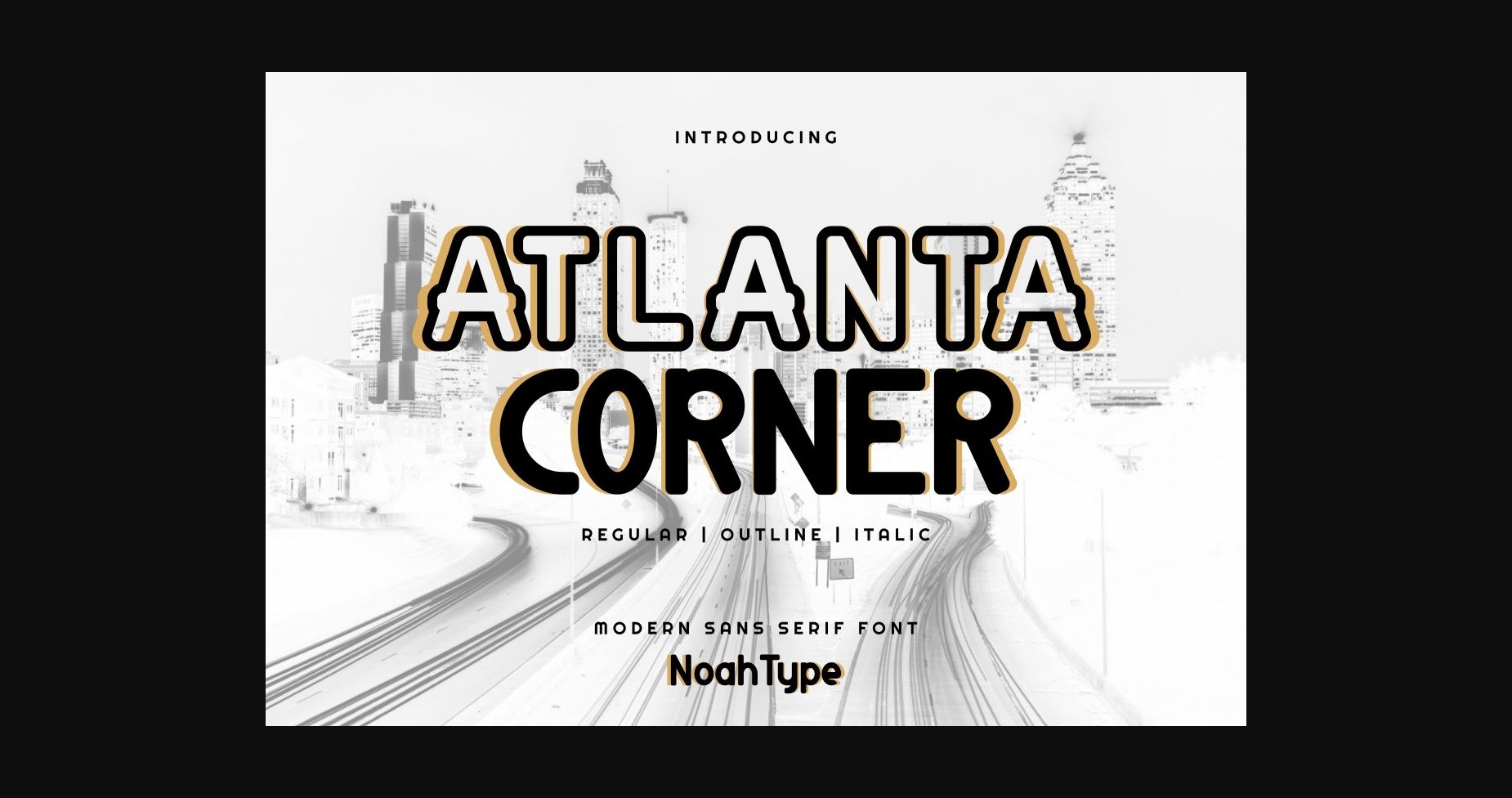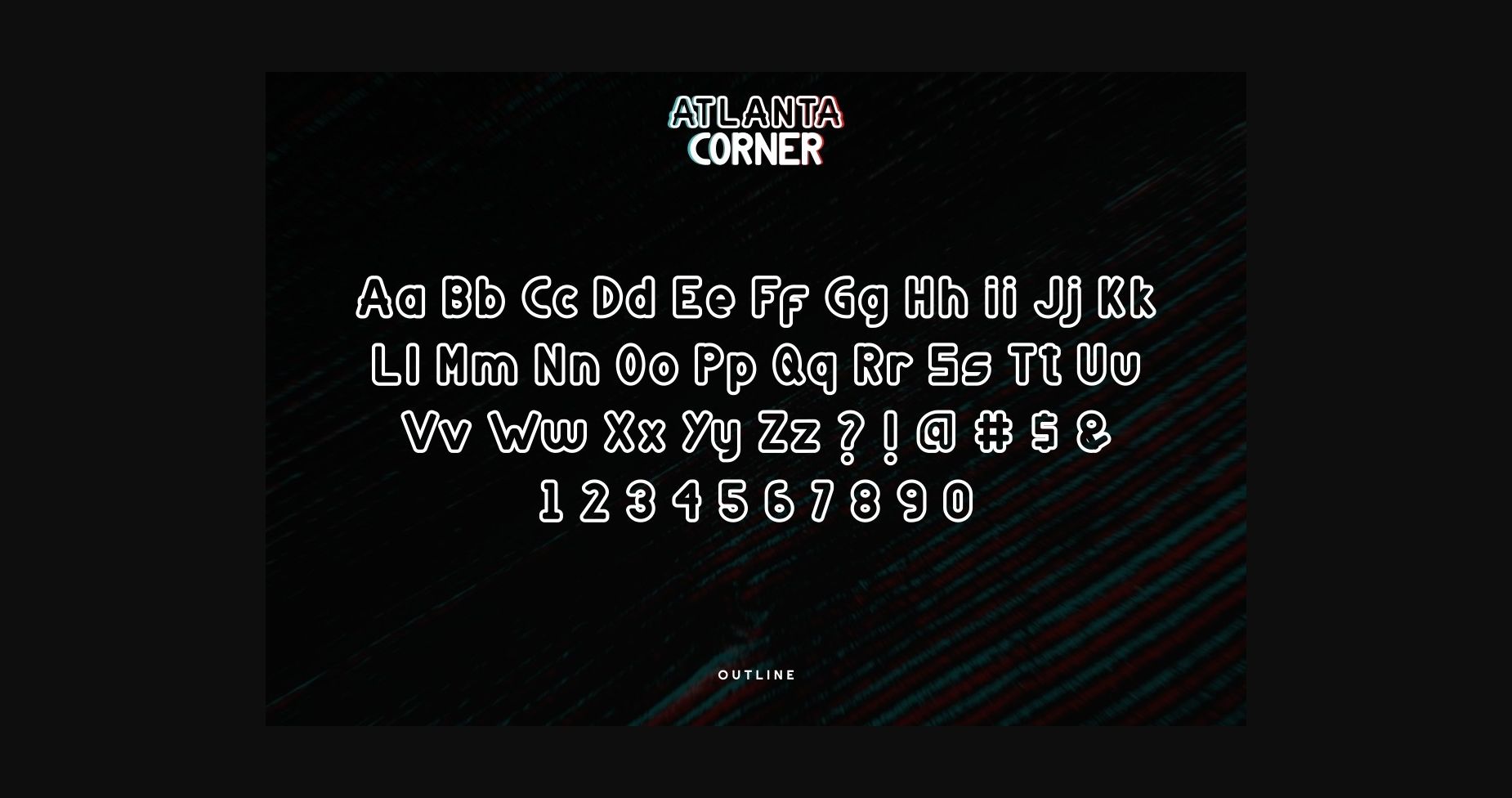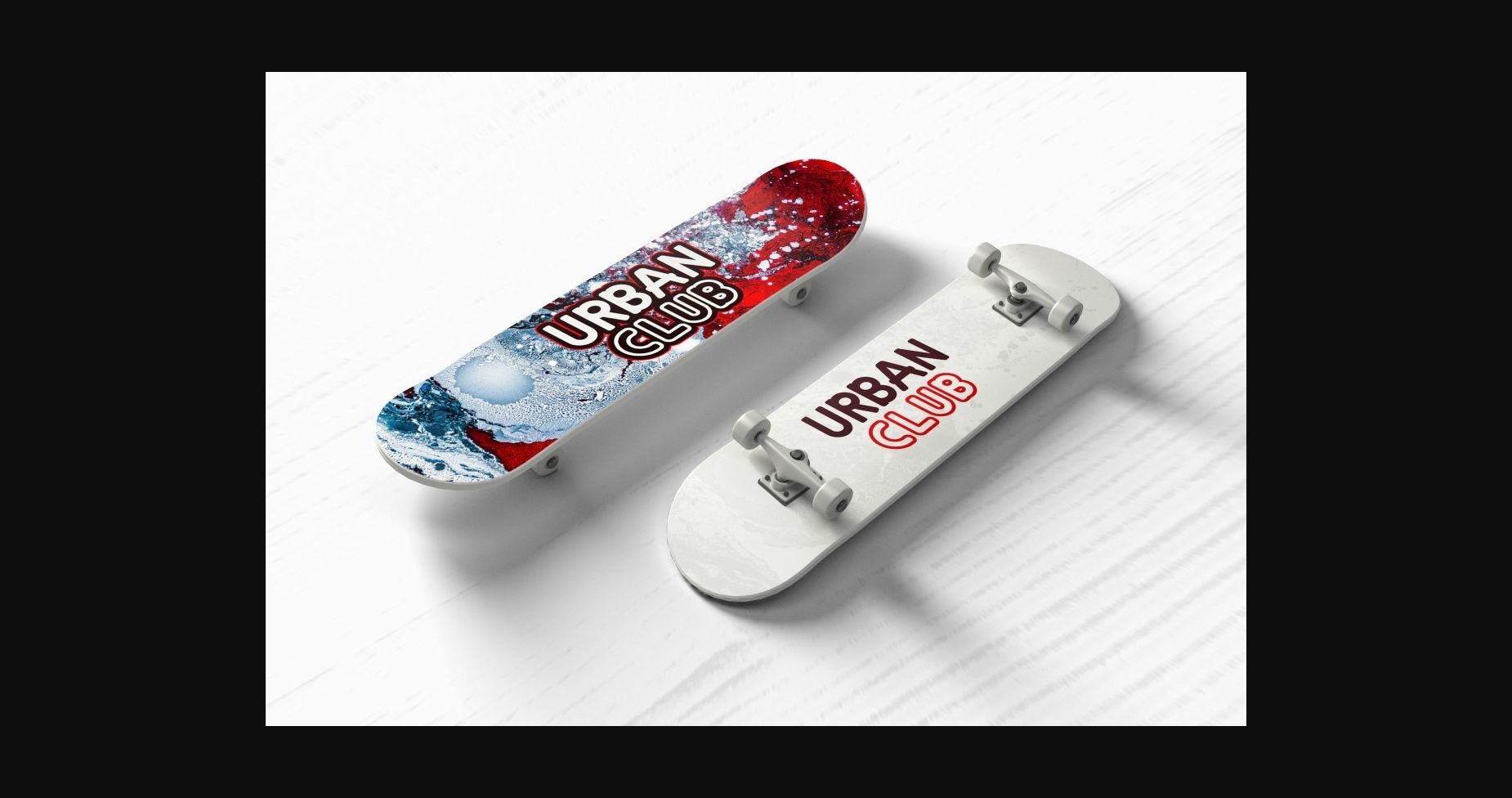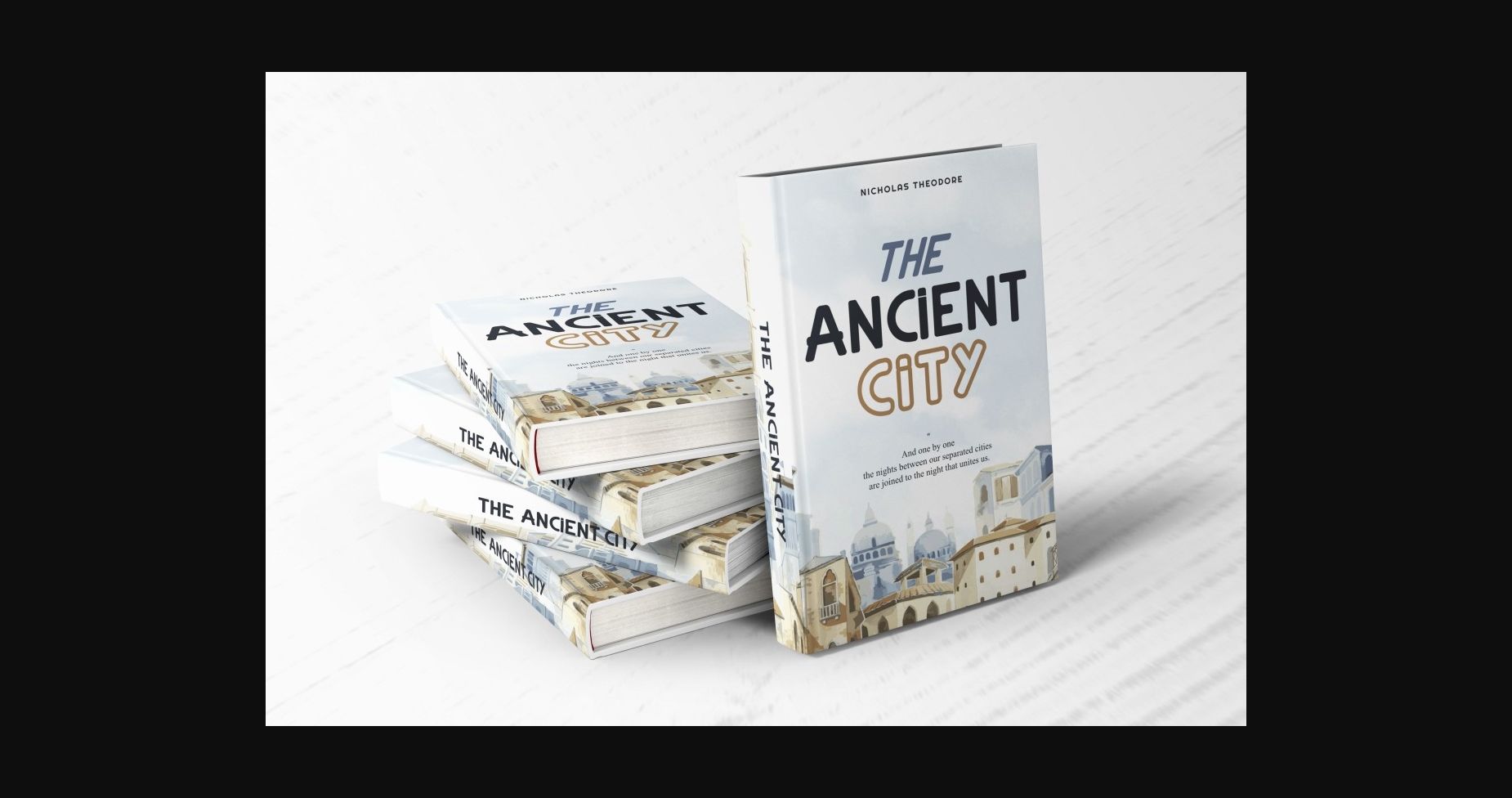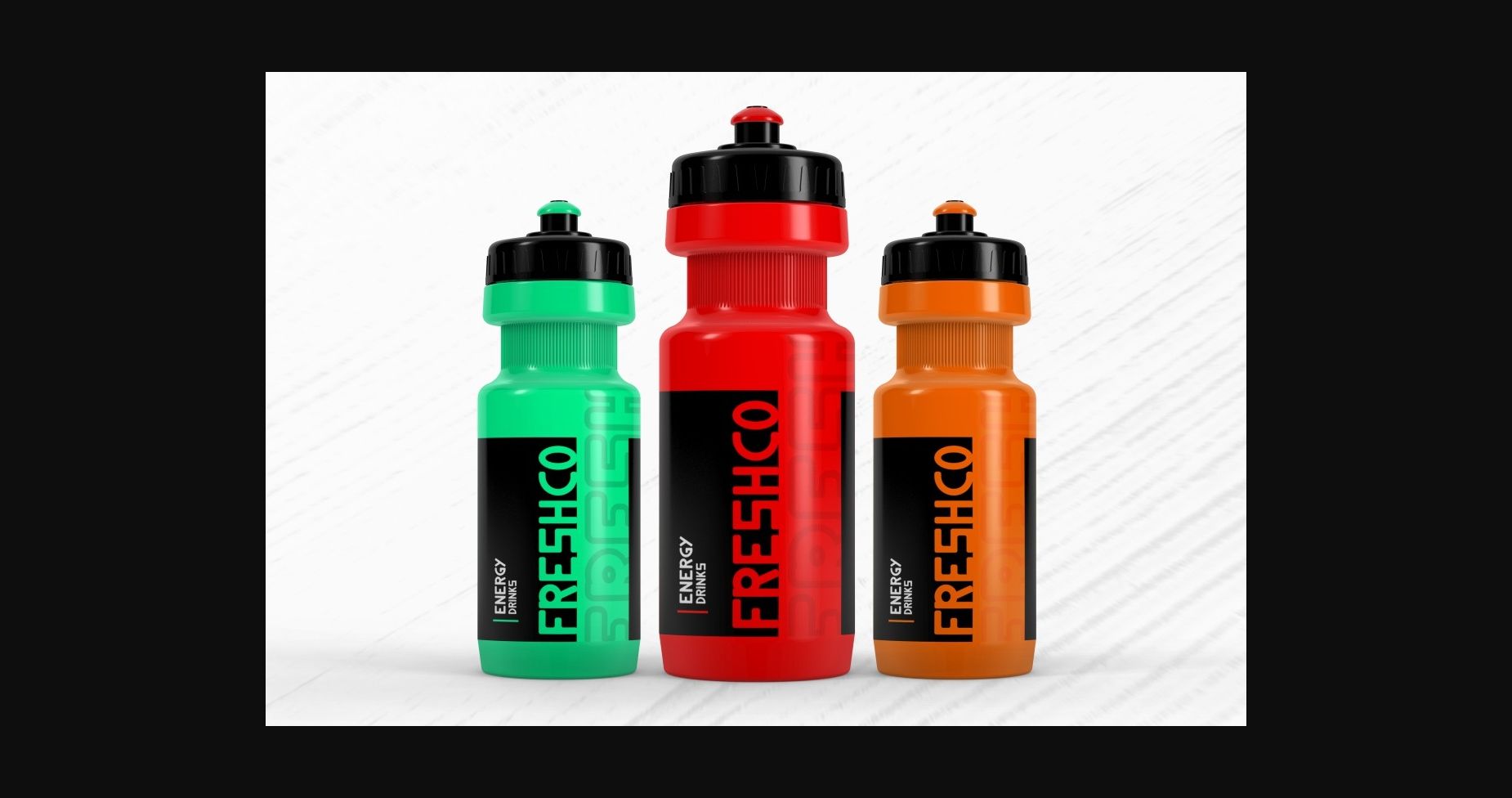
About Atlanta Corner Font
Atlanta Corner is a modern sans serif font. It has a unique and modern style that will bring an authentic touch to your designs. It will also work for tech companies, startup, business, real estate, technology, health products and more.